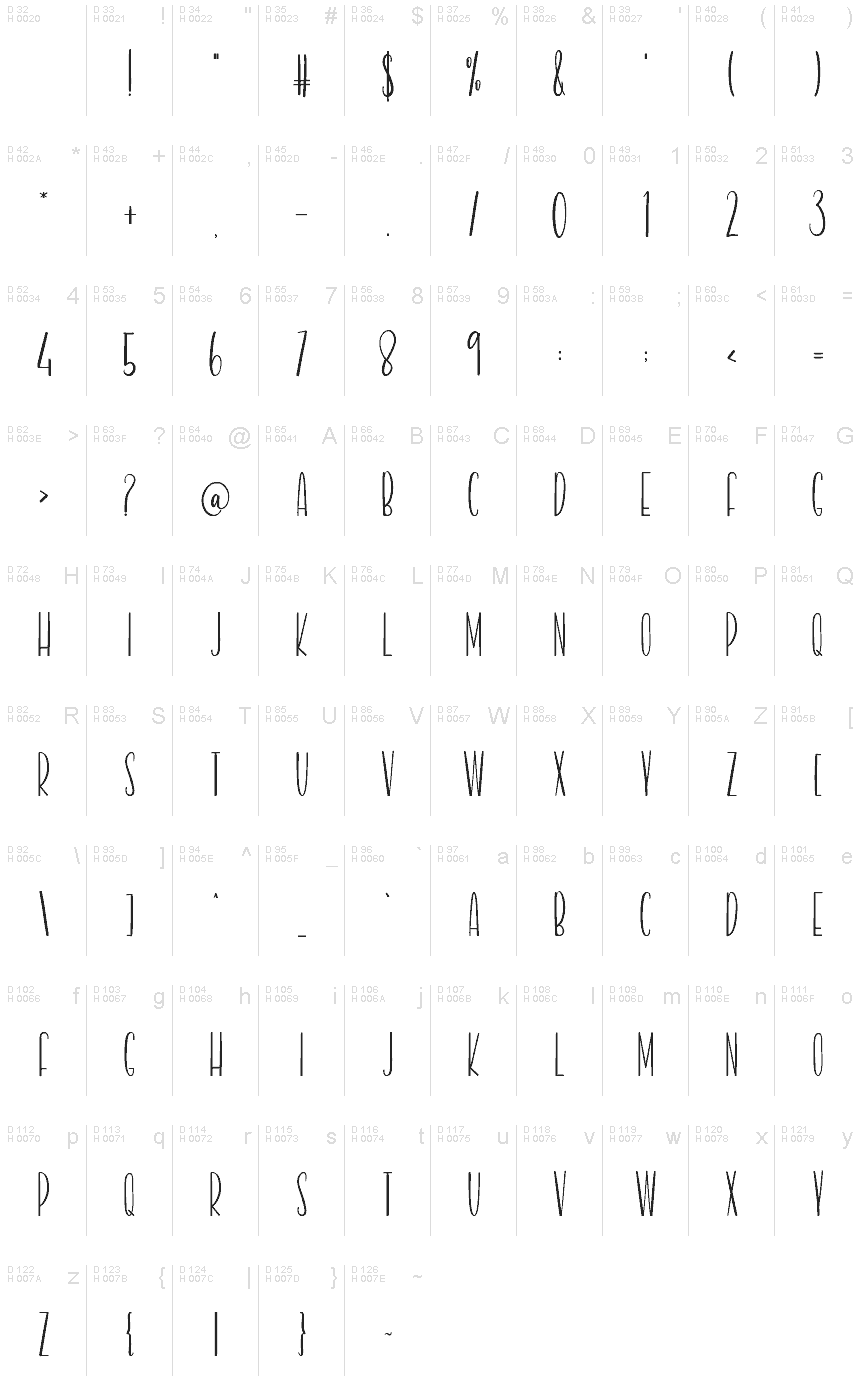
Note Christmas
Note Christmas font by Goodrichees is a free handwritten font with vintage inspiration. Light and condensed, its minimalist letters have tall proportions and clean lines with refined elegance. They are nicely balanced and legible which makes the entire typeface a reliable choice for projects that demand versatility.
The free font's application can be in logos, branding, ad posters, banner designs, titles, cover art, headlines, apparel design printing or embroidery. It also works beautifully in invitations like greeting cards for holidays and birthday parties!